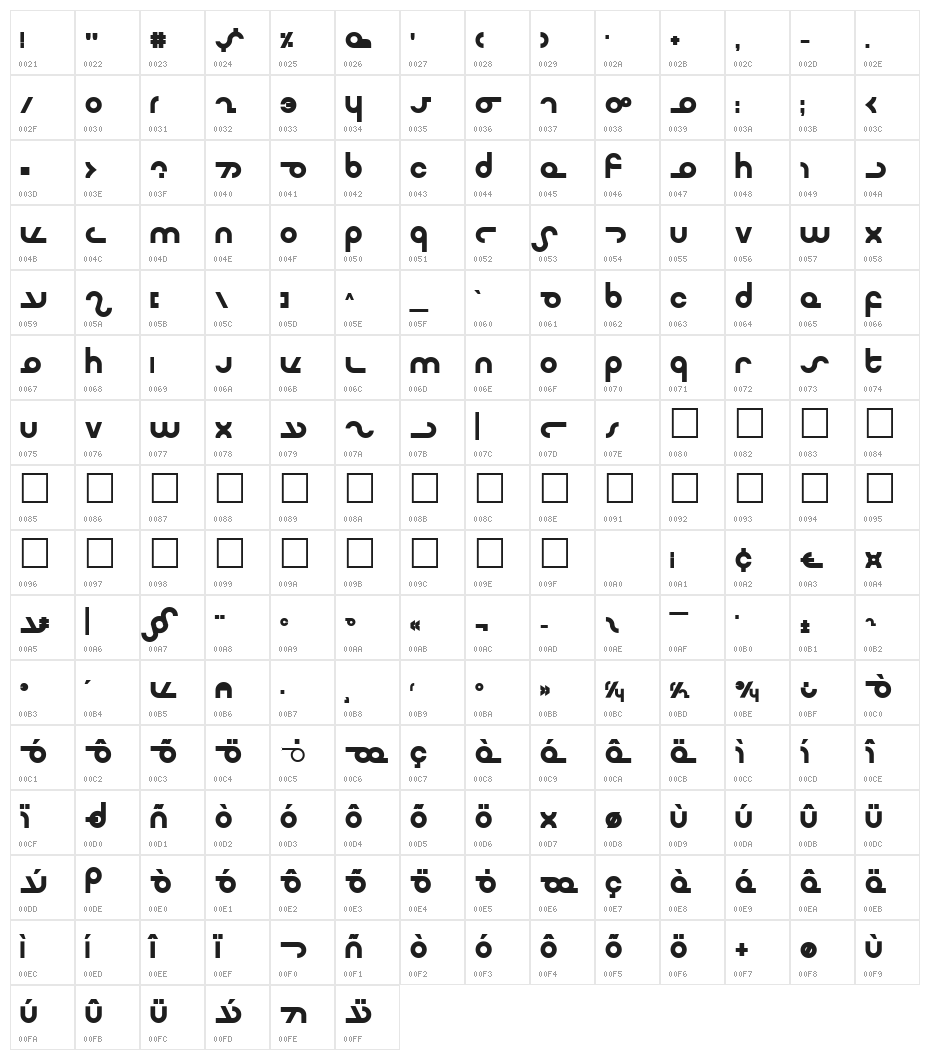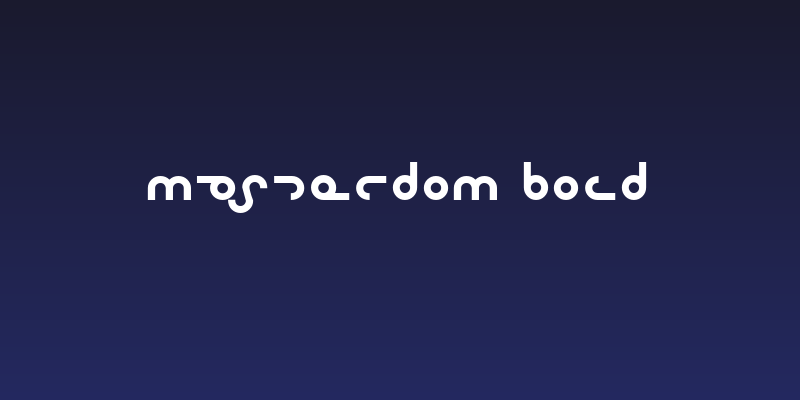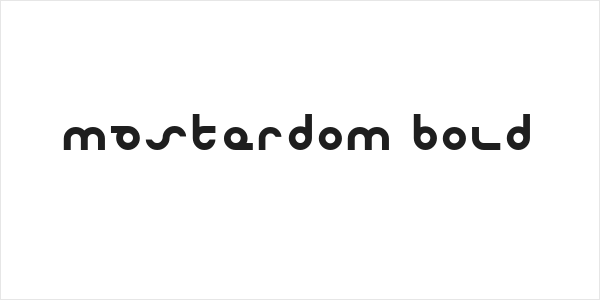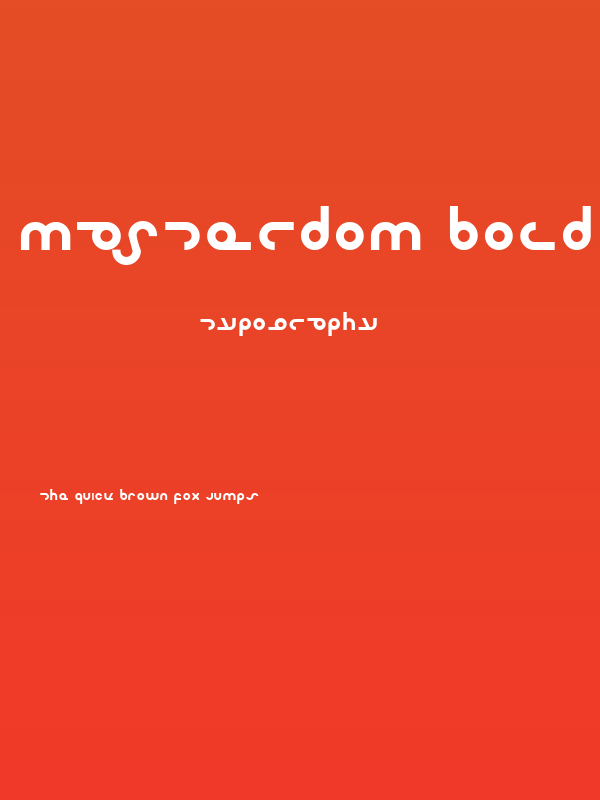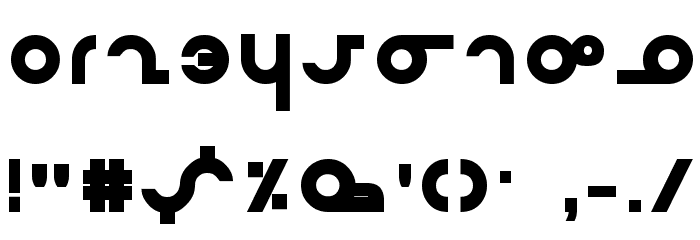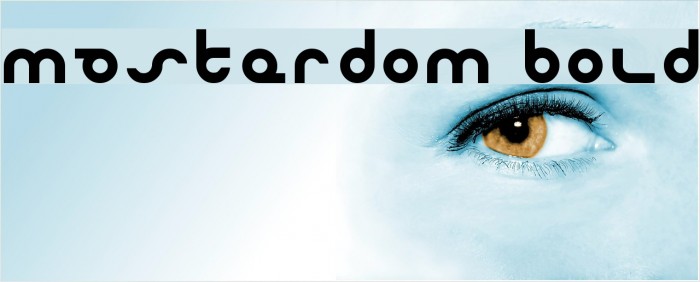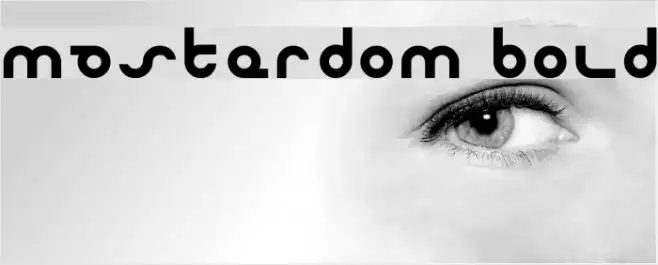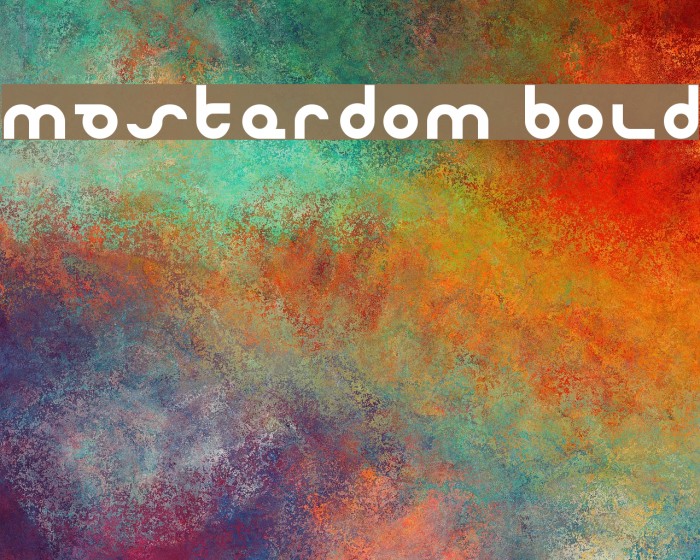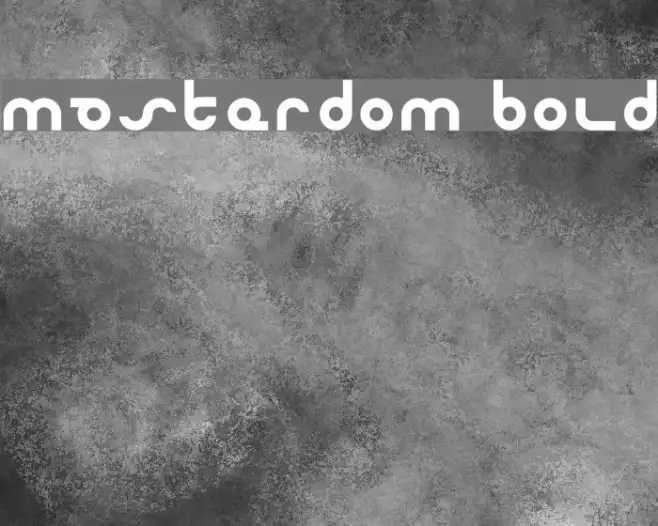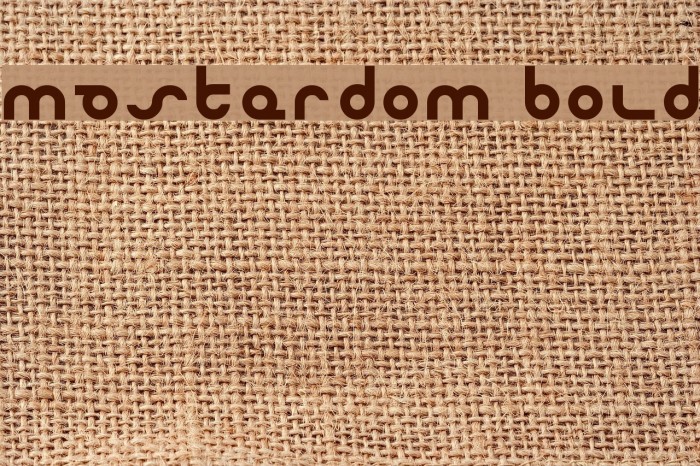
Masterdom Bold Font
Masterdom Bold Description
This font features a bold and modern design with a unique geometric style. The characters are constructed with clean lines and rounded edges, giving it a futuristic and sleek appearance. The uniformity in stroke width across all characters provides a cohesive look, while the distinctive shapes of certain letters add a playful touch. The font's design is both eye-catching and legible, making it suitable for a variety of creative applications. Its boldness ensures that it stands out, making it ideal for headlines or branding projects where a strong visual impact is desired.
| Proposed Projects | Ideal for branding, headlines, posters, and digital media where a modern and impactful look is needed. |